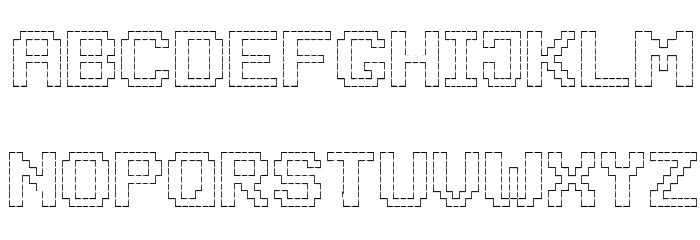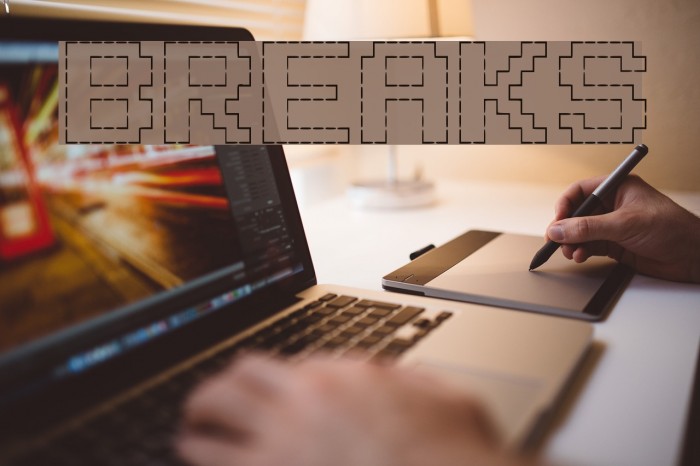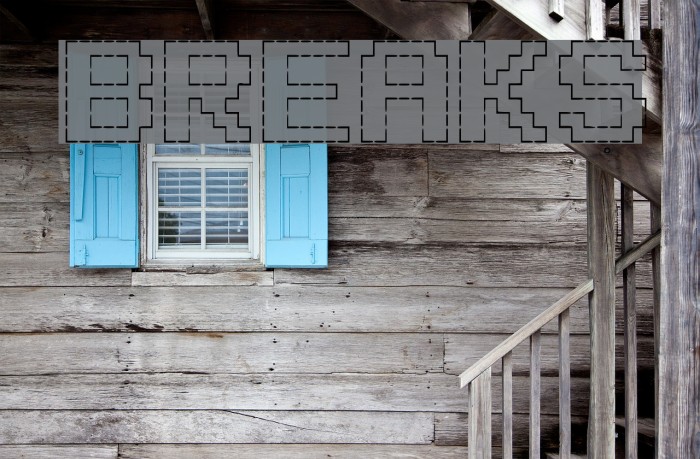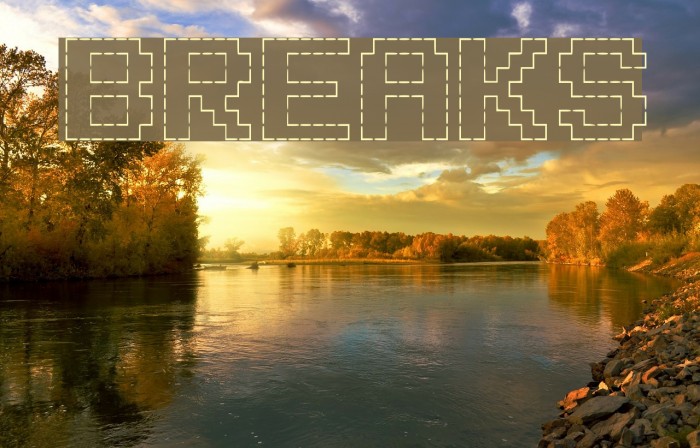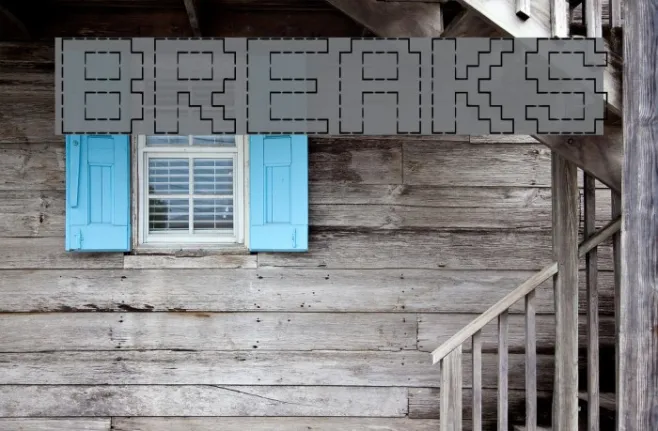
BREAKS Font
This font features a unique, pixelated outline style that gives it a digital, retro appearance. Each character is constructed with a series of small, square blocks, creating a distinct, jagged edge. The design is consistent across uppercase and lowercase letters, as well as numbers and special characters, maintaining a cohesive look. The font's geometric nature and uniformity make it stand out, while the hollow interior of each character adds a sense of lightness and openness. This style is reminiscent of early digital displays or video game graphics, offering a nostalgic feel.
A pixelated, outline font with a retro digital style.
- Proposed Projects: Ideal for projects that require a retro or digital theme, such as video game graphics, tech-related branding, or nostalgic posters.
- Overall Style: Retro, Digital